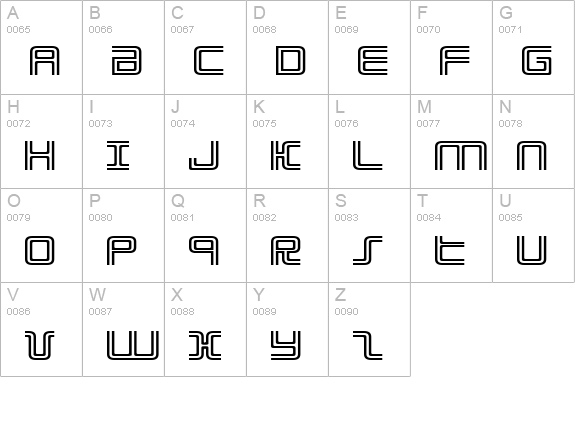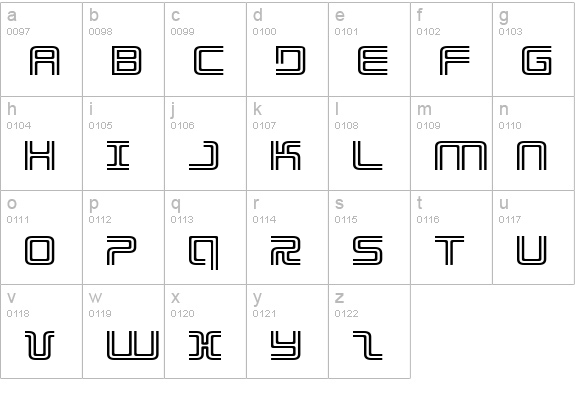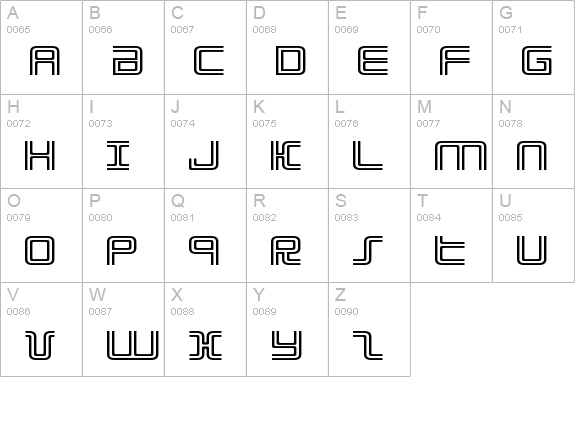
Election Day Expanded is a distinctive, extended-width variant in the Election typeface family \xE2\x80\x94 well suited to design and typography projects.
Election Day Expanded font is a bold and modern typeface designed to make a statement. With its clean lines and sharp edges, this font exudes confidence and authority, making it the perfect choice for any project that requires a strong and impactful look. The expanded version of Election Day adds an extra level of sophistication and elegance to your designs. Best of all, Election Day Expanded font is free to download at FontsMarket.com! You can easily access this versatile font and use it in all your creative projects without any cost. Whether you're designing posters, flyers, logos, or social media graphics, Election Day Expanded font will elevate your designs to the next level. Don't miss out on this amazing opportunity to enhance your typography game with this stunning font. Download Election Day Expanded font now and let your creativity shine!